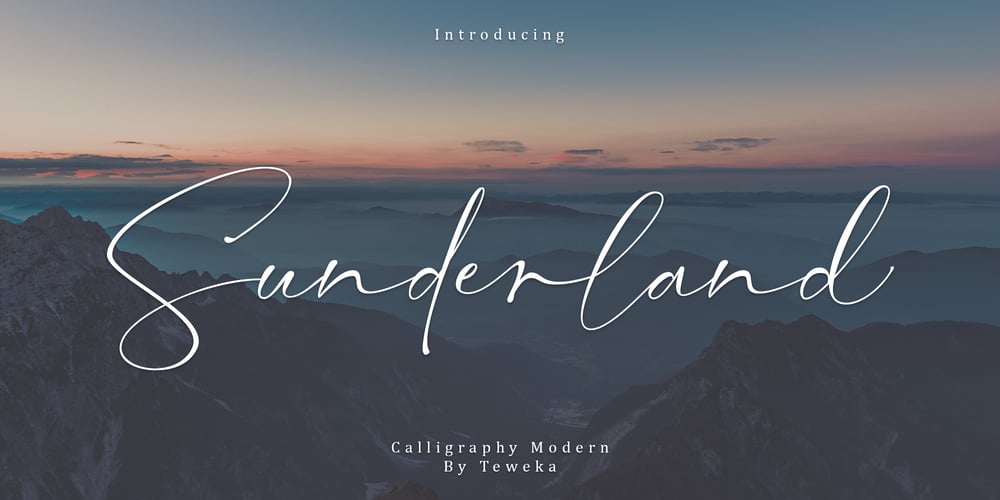
Sunderland
Sunderland font
Sunderland Font Family was designed by Tuanku Muhammad Iqbal and published by Teweka. Sunderland contains 1 styles and family package options. Sunderland is a modern calligraphy font with a beautiful touch, perfect for branding, social media, logos and more. Sunderland has 301 glyphs, including 8 ligatures, sunderland also gets swash lowercase letters a to z. Sunderland is very easy to use, because there is an automatic first and last letters swap.In order to use the beautiful swashes, you need a program that supports OpenType features such as Adobe Illustrator CS, Adobe Photoshop CC, Adobe Indesign and Corel Draw.